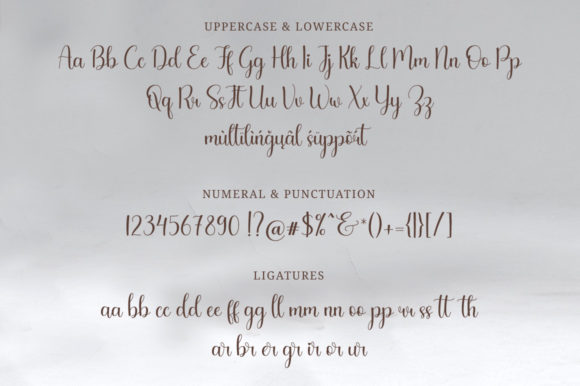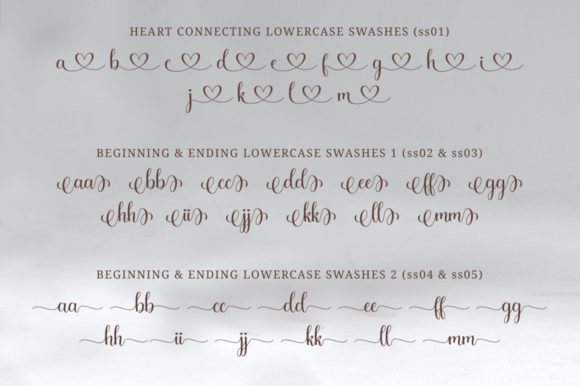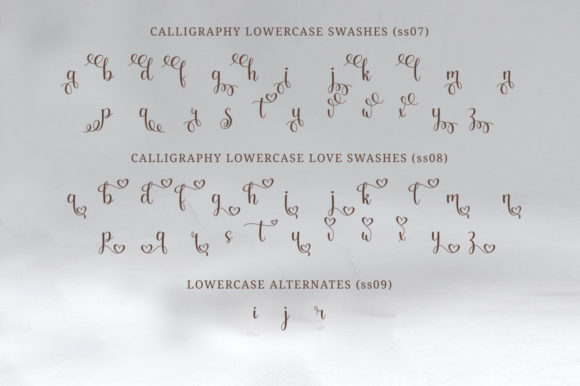
About Barkelia Font
Barkelia is a delicate and elegant handwritten font. Its distinct and well rounded letters make this font a masterpiece. Fall in love with its incredibly versatile style and use it to create spectacular designs!